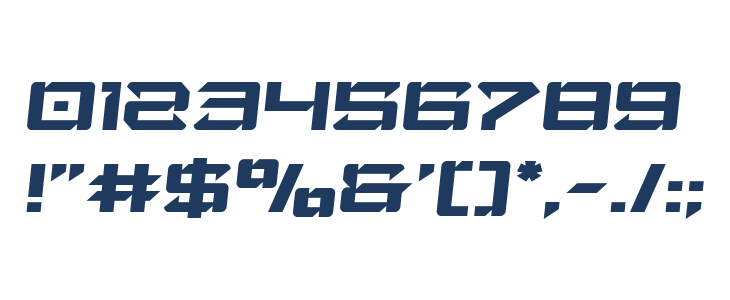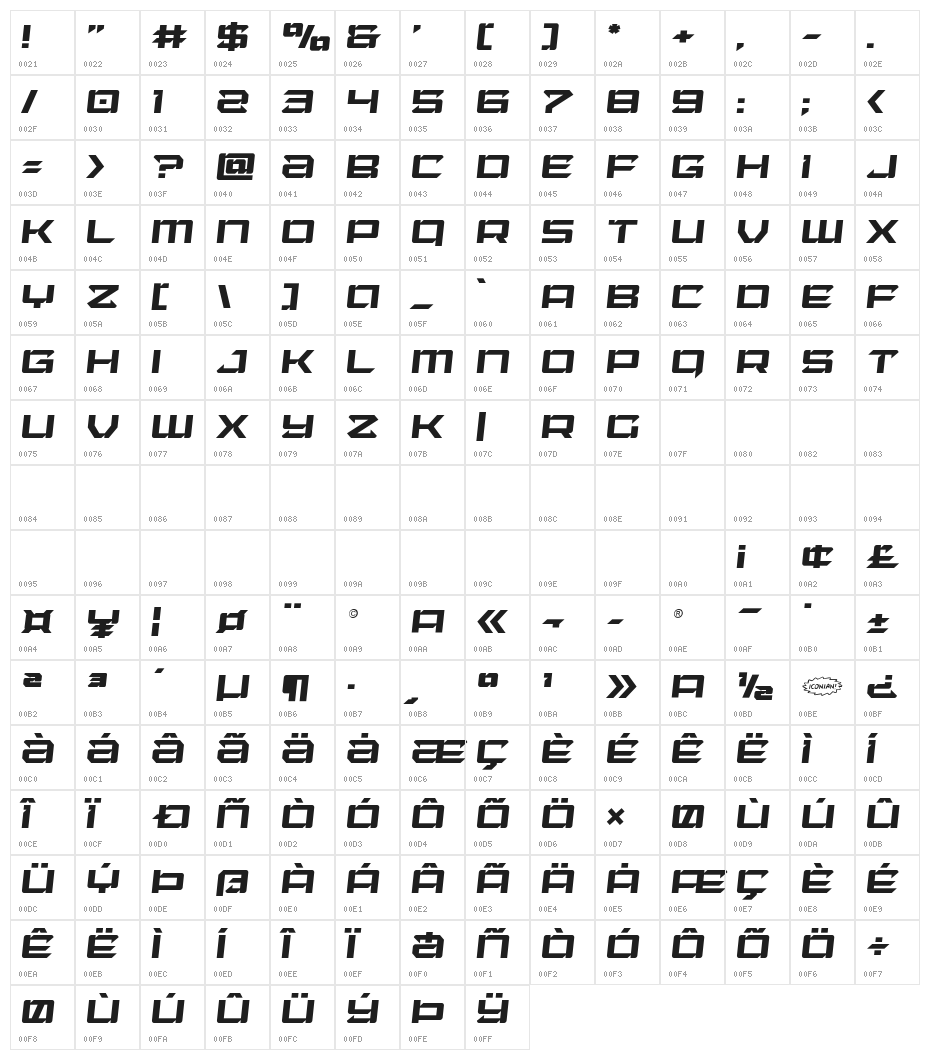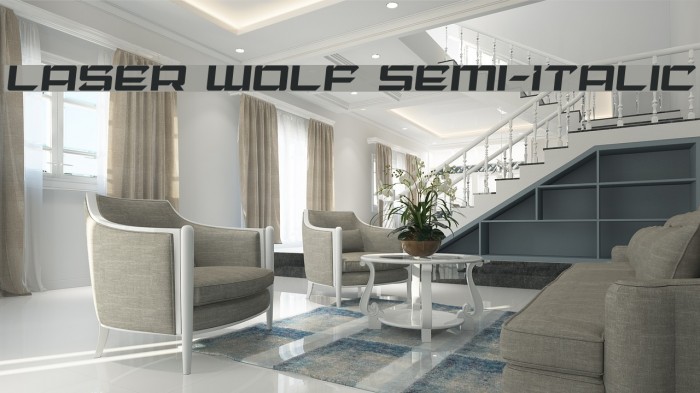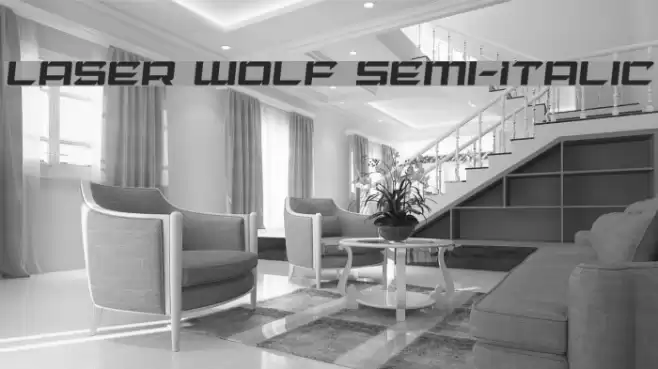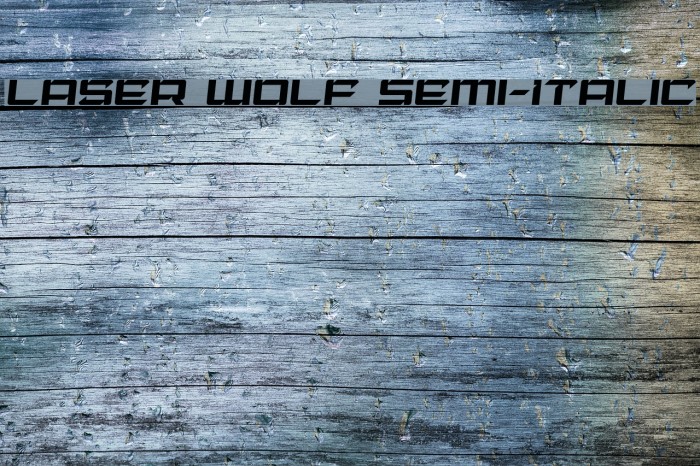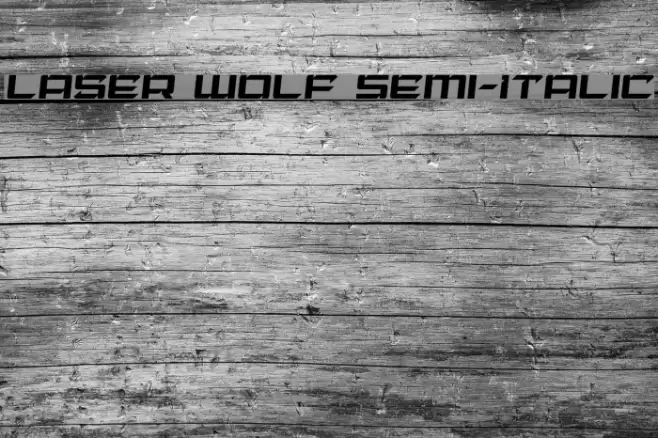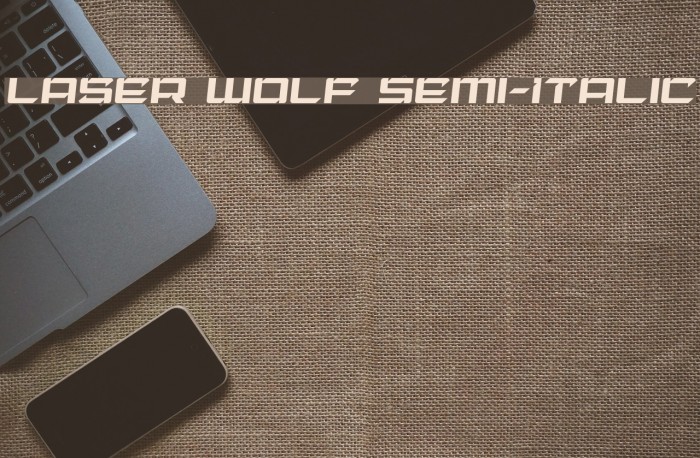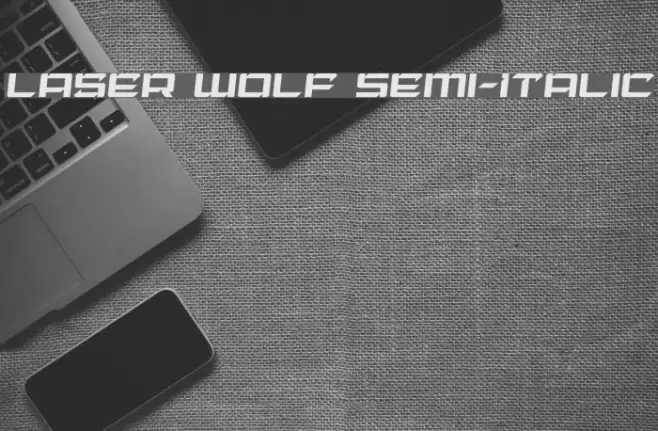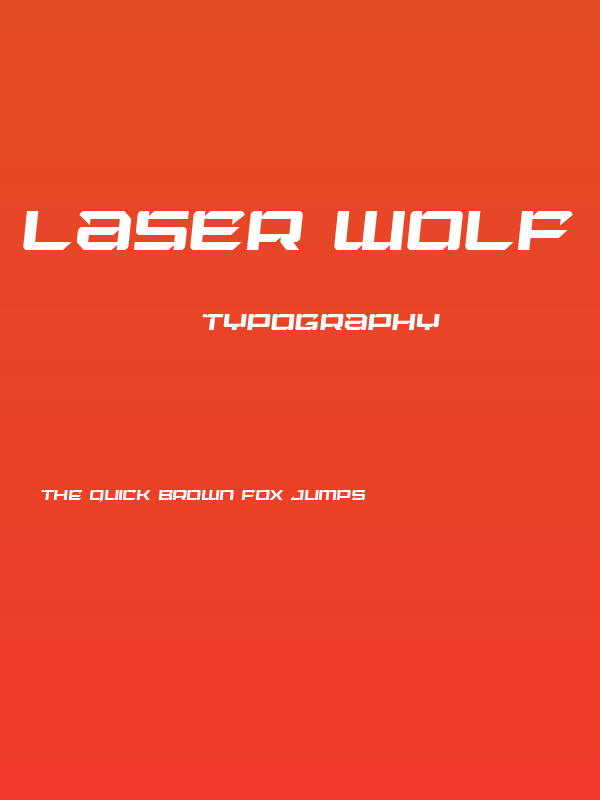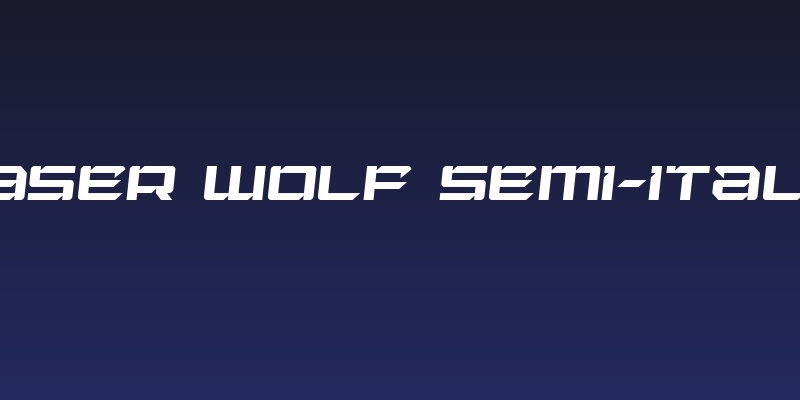
Laser Wolf Semi-Italic Font
Laser Wolf Semi-Italic Description
This font features a futuristic and angular design, characterized by sharp edges and a dynamic slant. The uppercase and lowercase letters maintain a consistent geometric style, with a slight italic tilt that adds a sense of motion and energy. The numerals and special characters follow the same aesthetic, ensuring uniformity across all glyphs. The overall appearance is bold and striking, making it suitable for projects that require a modern and edgy look.
| Proposed Projects | Ideal for sci-fi themed designs, video game titles, tech branding, and modern posters. |